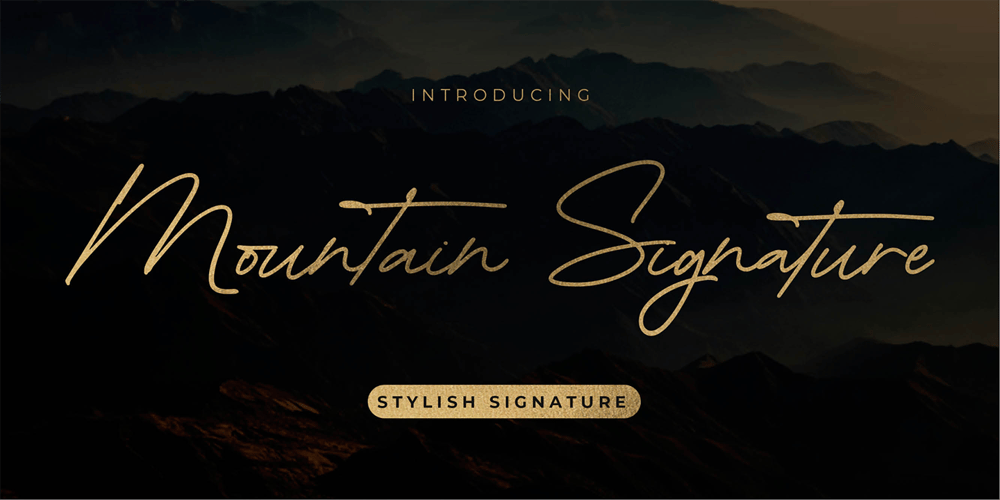
Mountain Signature
Mountain Signature Font Family was designed by Abdul Malik Wisnu and published by Almarkha Type. Mountain Signature contains 1 styles and family package options. Introducing Mountain Signature – Stylish Signature Script is a quality script that is written casually and quickly with 28 ligature. Letters are made with Sign on paper. Then scanned and carefully drawn into vector format.Mountain Signature is perfect for homeware designs, branding projects, logos, designs, quotes, product packaging, photography, and watermarks.